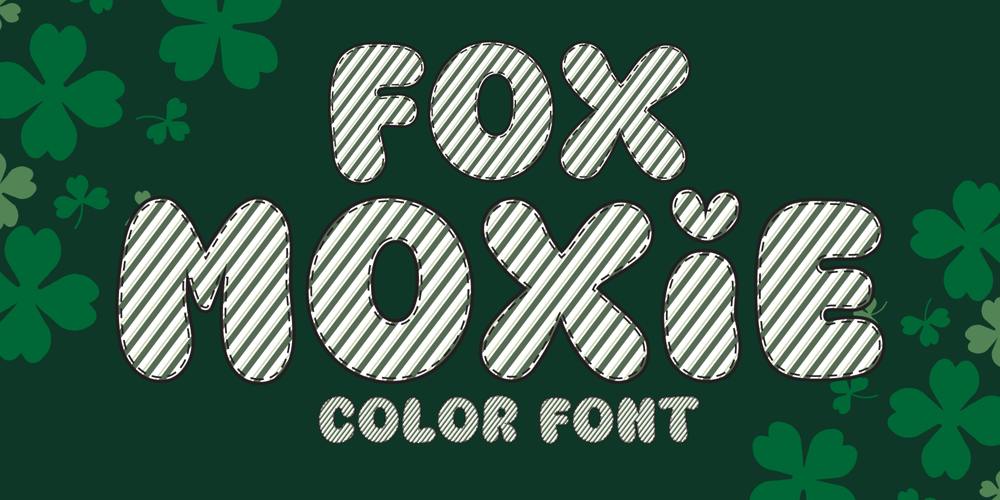
Fox Moxie
Fox Moxie font
Fox Moxie Font Family was designed by Rattana Rattanawan and published by Fox7. Fox Moxie contains 1 styles and family package options. Fox Moxie is a cute and fun color font. This font is your go-to for crafting cute greeting cards that express affection and warmth. Fall in love with its authentic feel and use it to create gorgeous invitations, beautiful stationary art, eye-catching social media posts, and cute greeting cards.🌺🌺 Please note that the Canva do not support color fonts! 🌺🌺